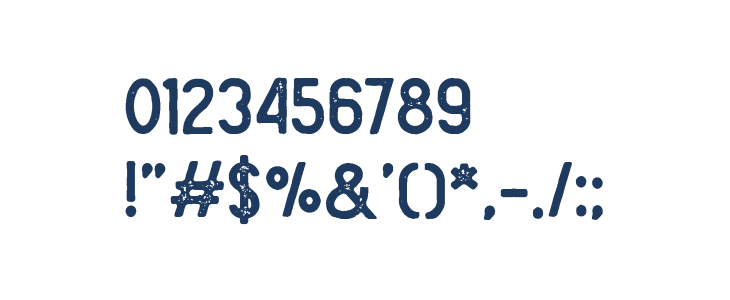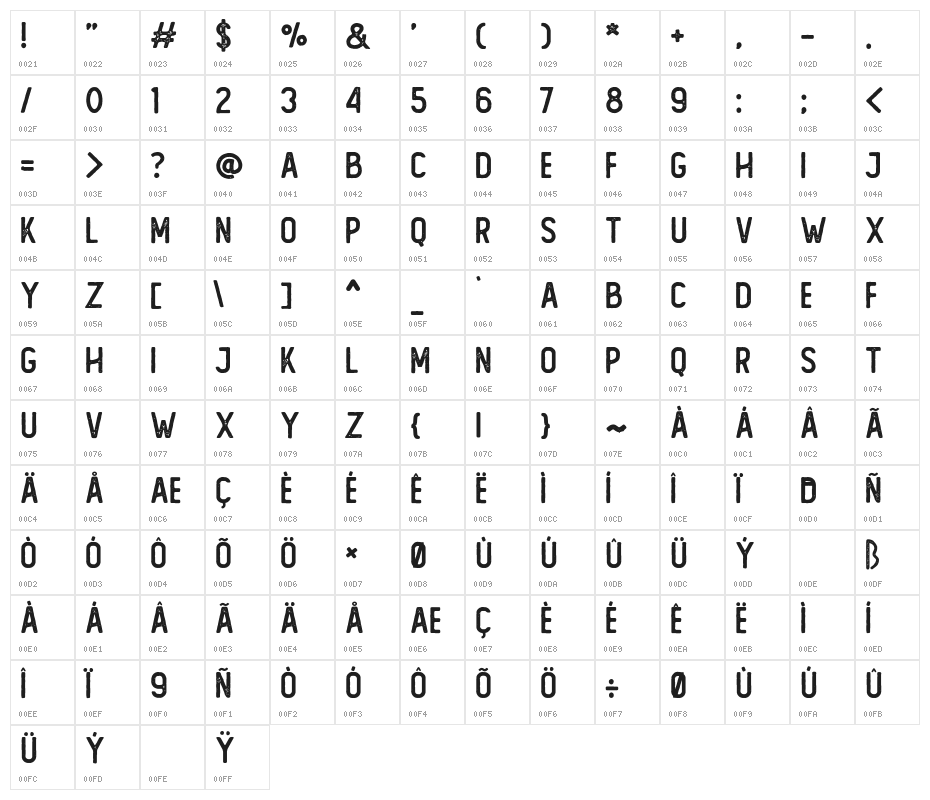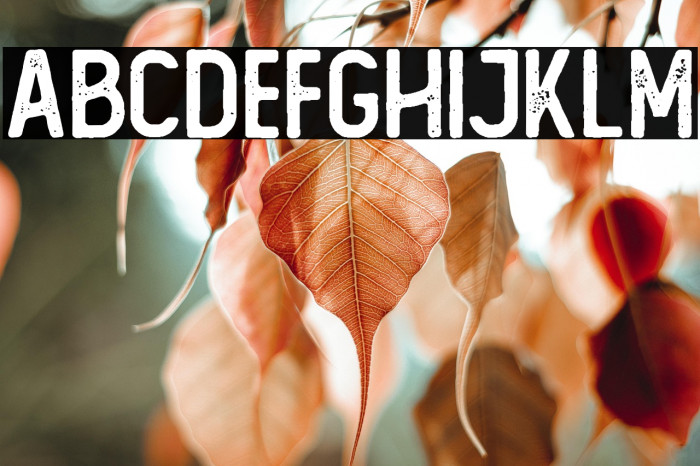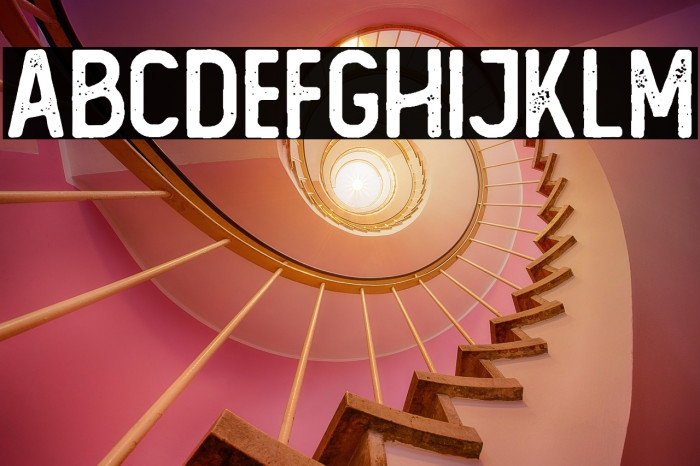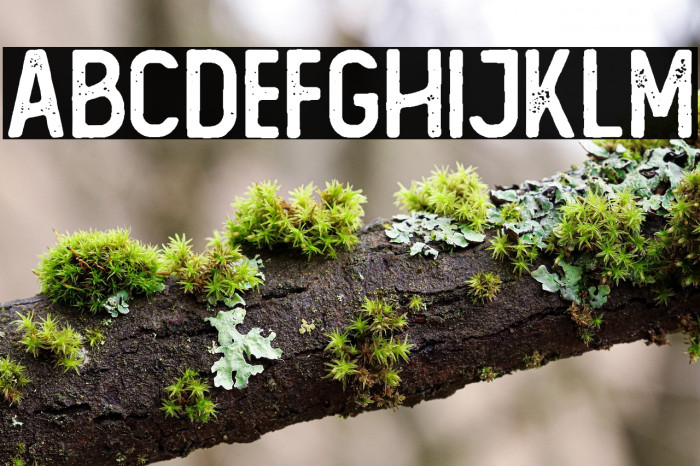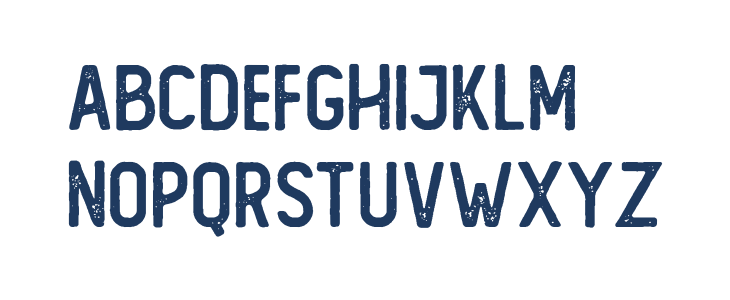
The Foregen Rough One Font
The Foregen Rough One Description
This font features a rugged, distressed appearance with a bold and impactful presence. Each character is marked by a textured, rough finish that gives it a vintage, worn-out look. The uppercase letters are uniform in height, while the numbers and special characters maintain the same distressed style, adding to the font's cohesive aesthetic. The characters are evenly spaced, ensuring readability despite the textured design. This font is ideal for projects that require a bold statement with a touch of nostalgia and character.
| Overall Style | Vintage |
| Proposed Projects | Ideal for branding, posters, vintage-themed designs, and any project needing a bold, textured look. |